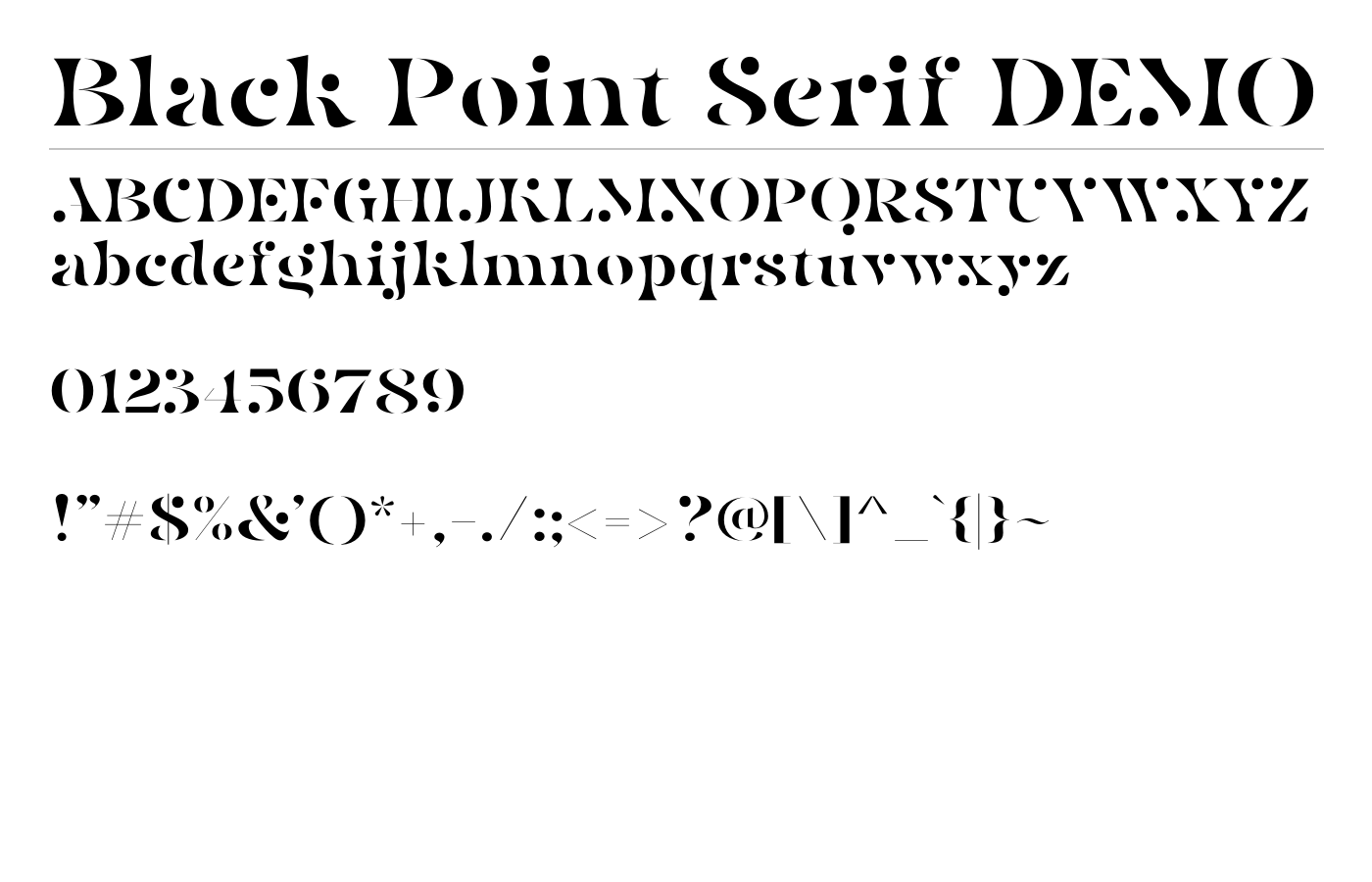
Black Point Serif DEMO is a high-contrast modern serif font with bold, dramatic strokes and sharp, geometric shapes. Its unique letterforms and stylish flair make it ideal for creating elegant, eye-catching headlines and luxury branding. This font works best in designs that need a strong, sophisticated presence, such as fashion magazines, logos, and upscale packaging.
Black Point Serif DEMO Font
About Black Point Serif DEMO Font
| Font family | Black Point Serif DEMO Font |
| Designer | Sarid Ezra |